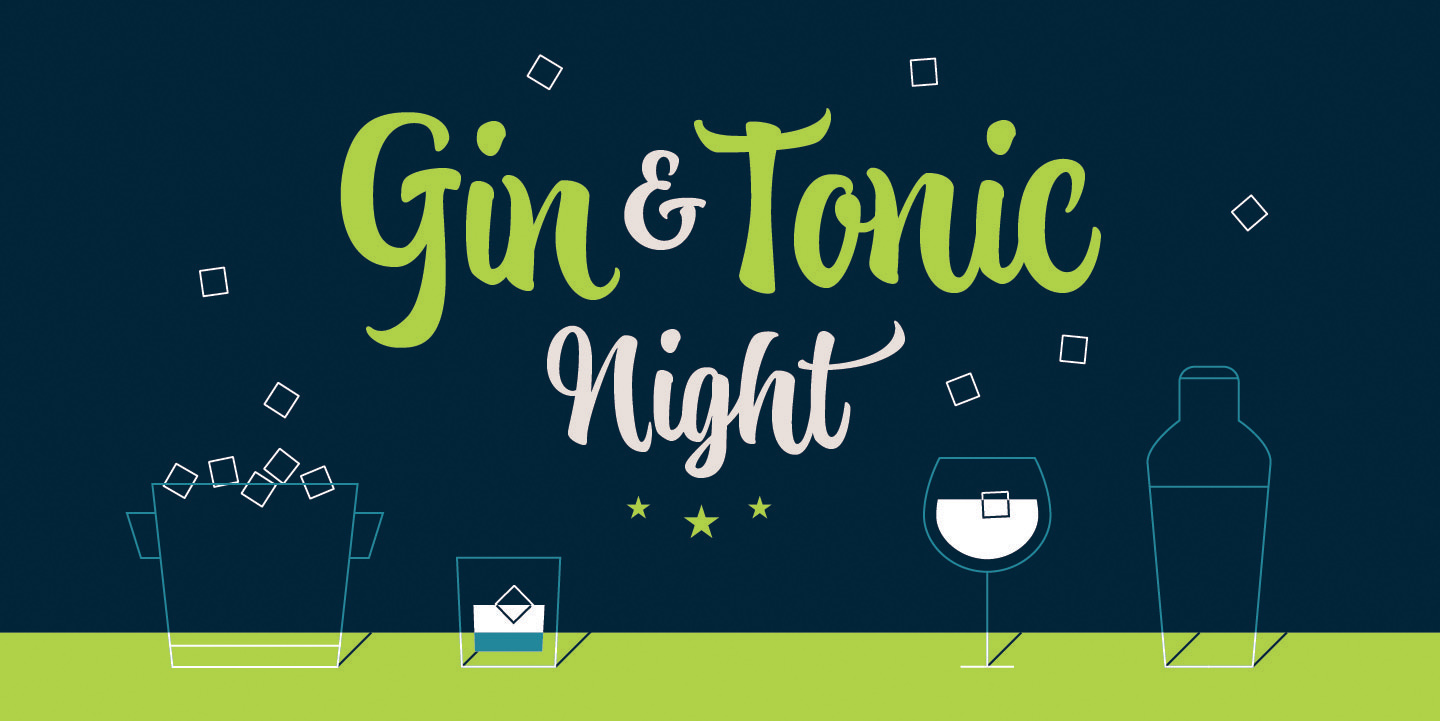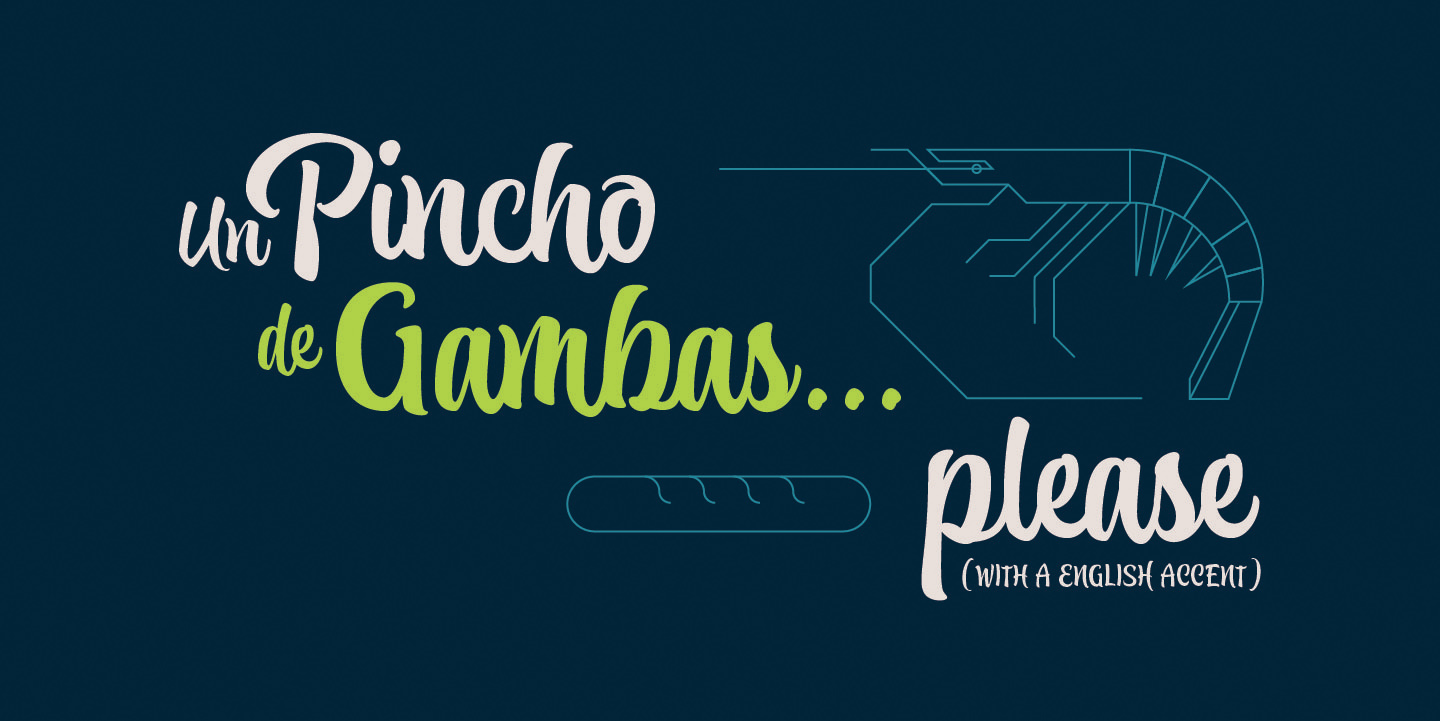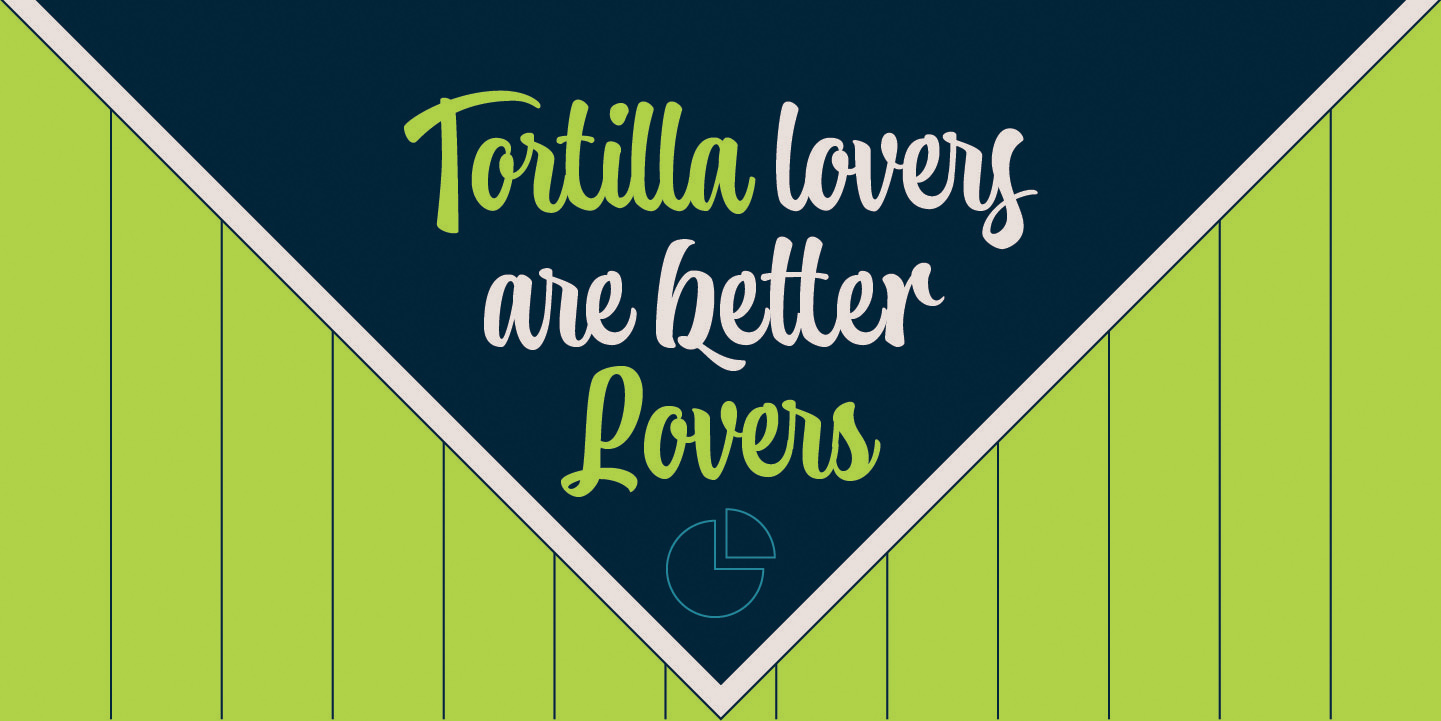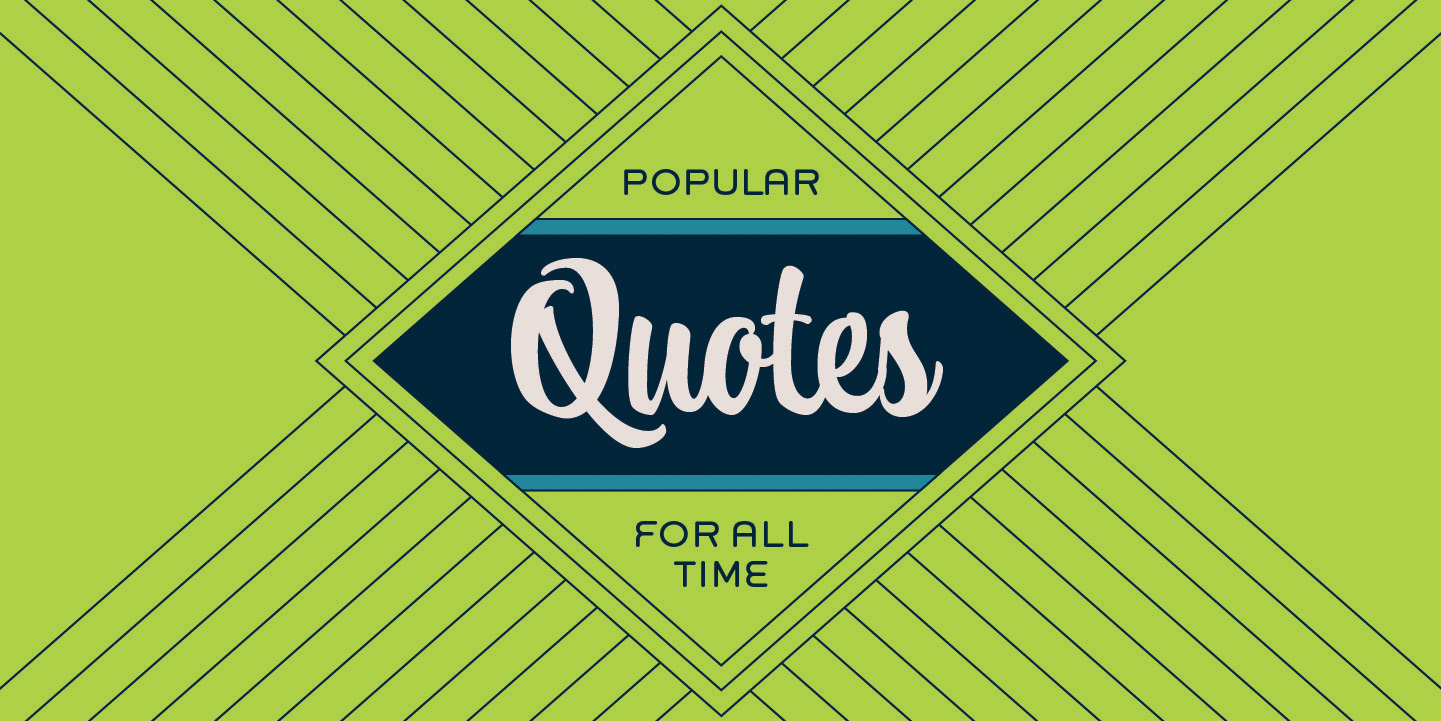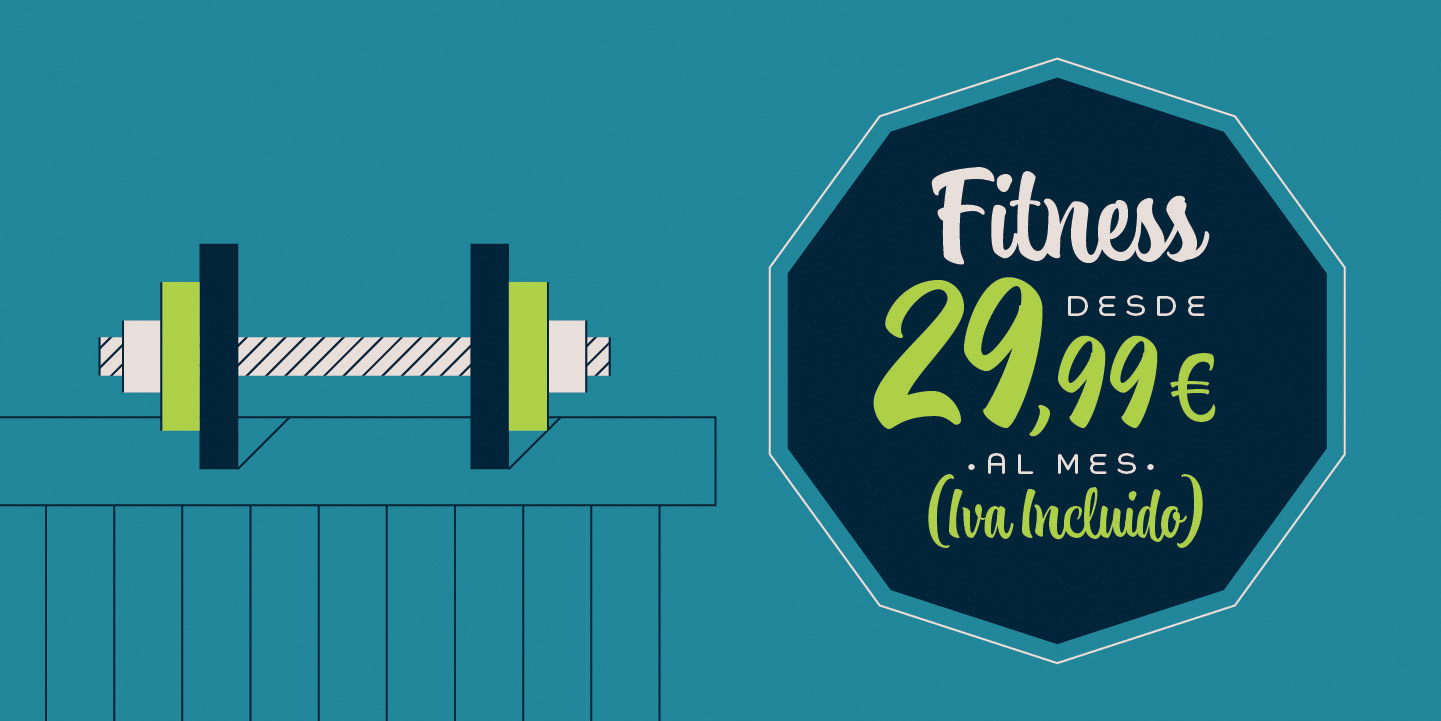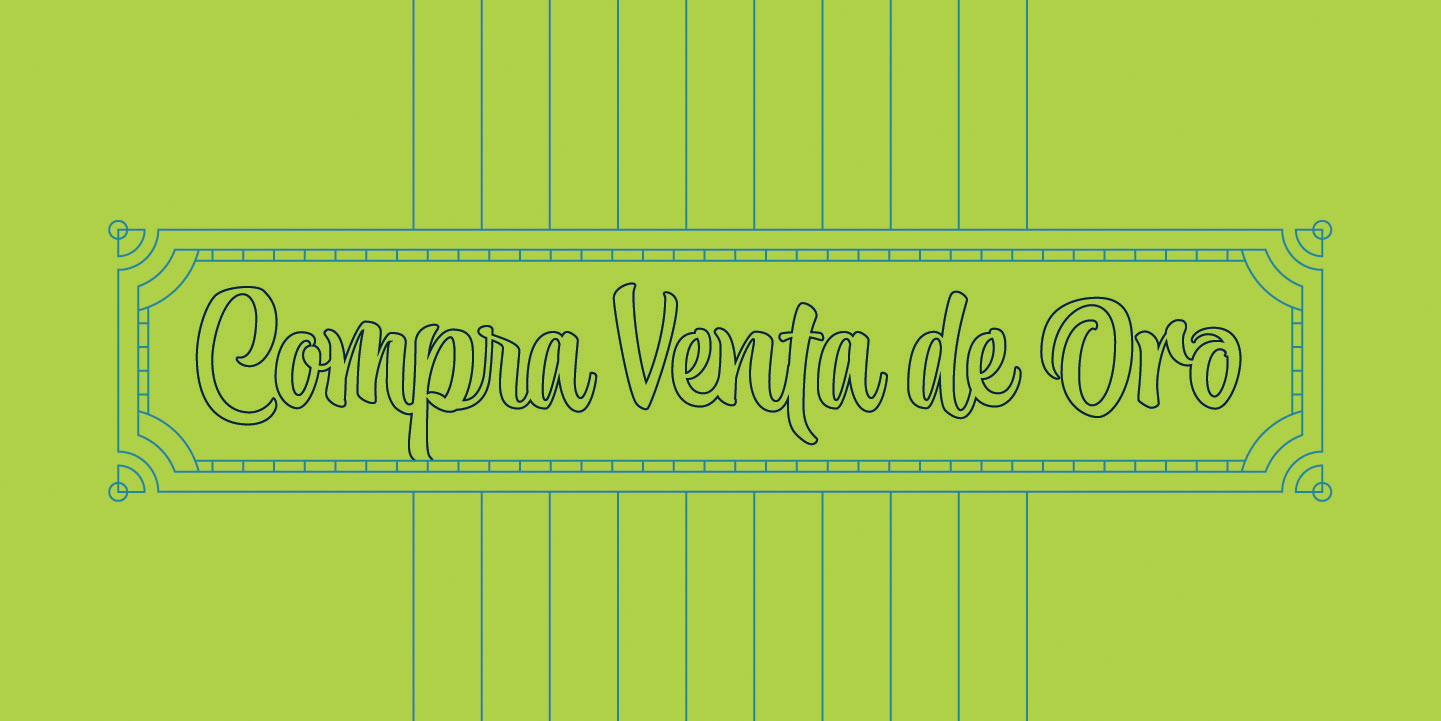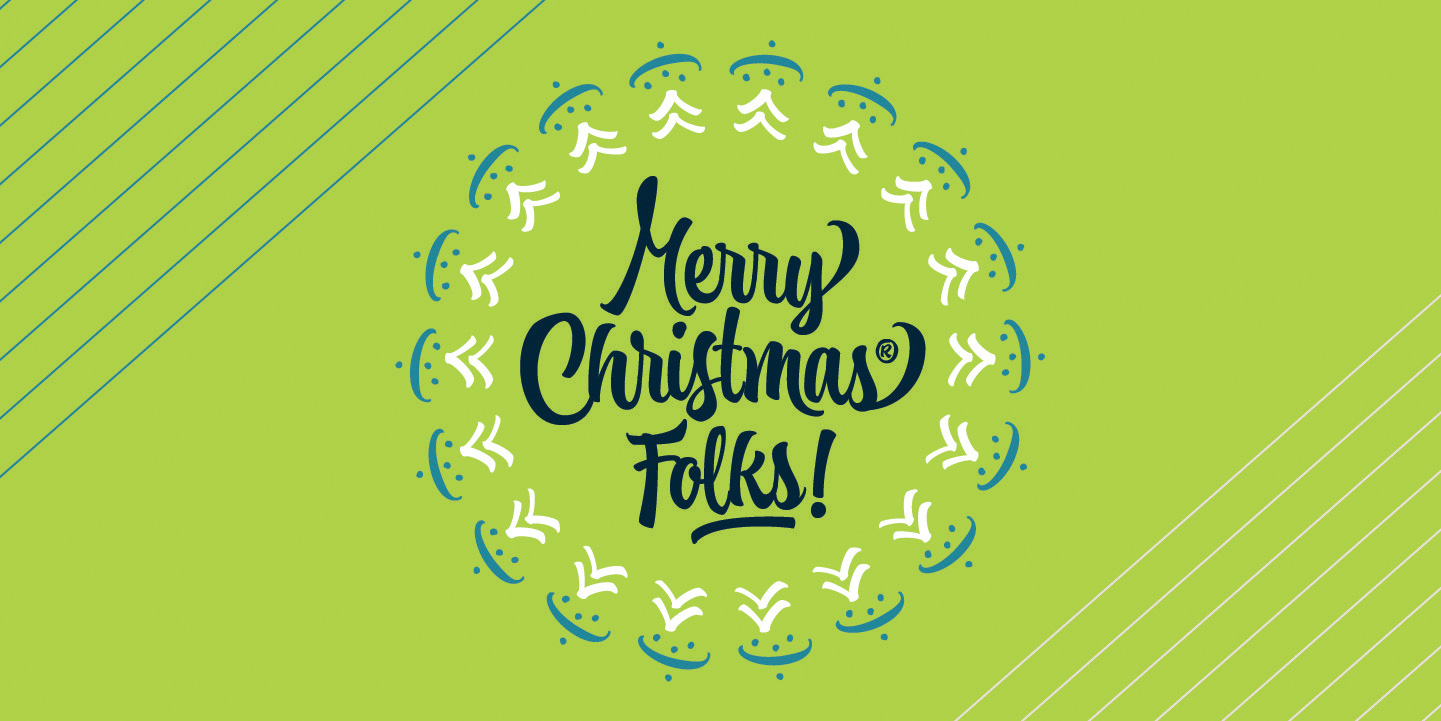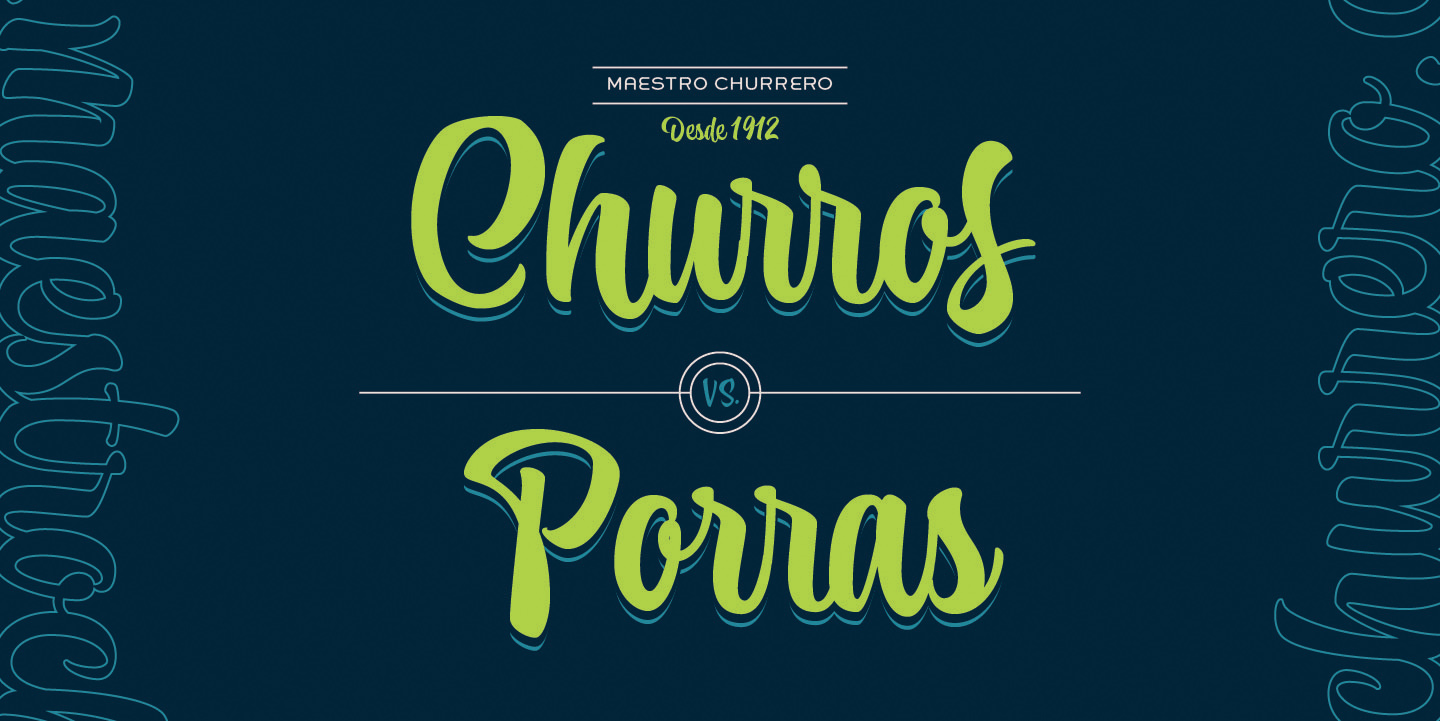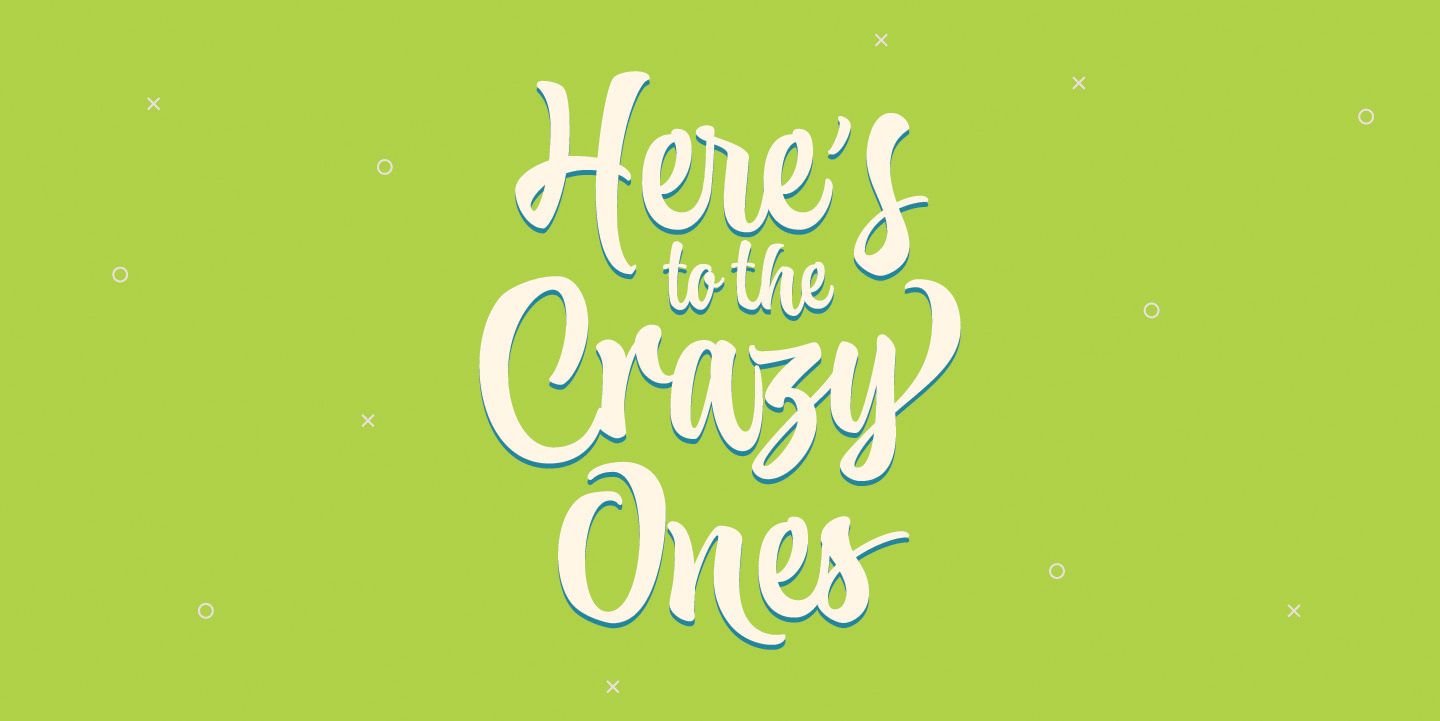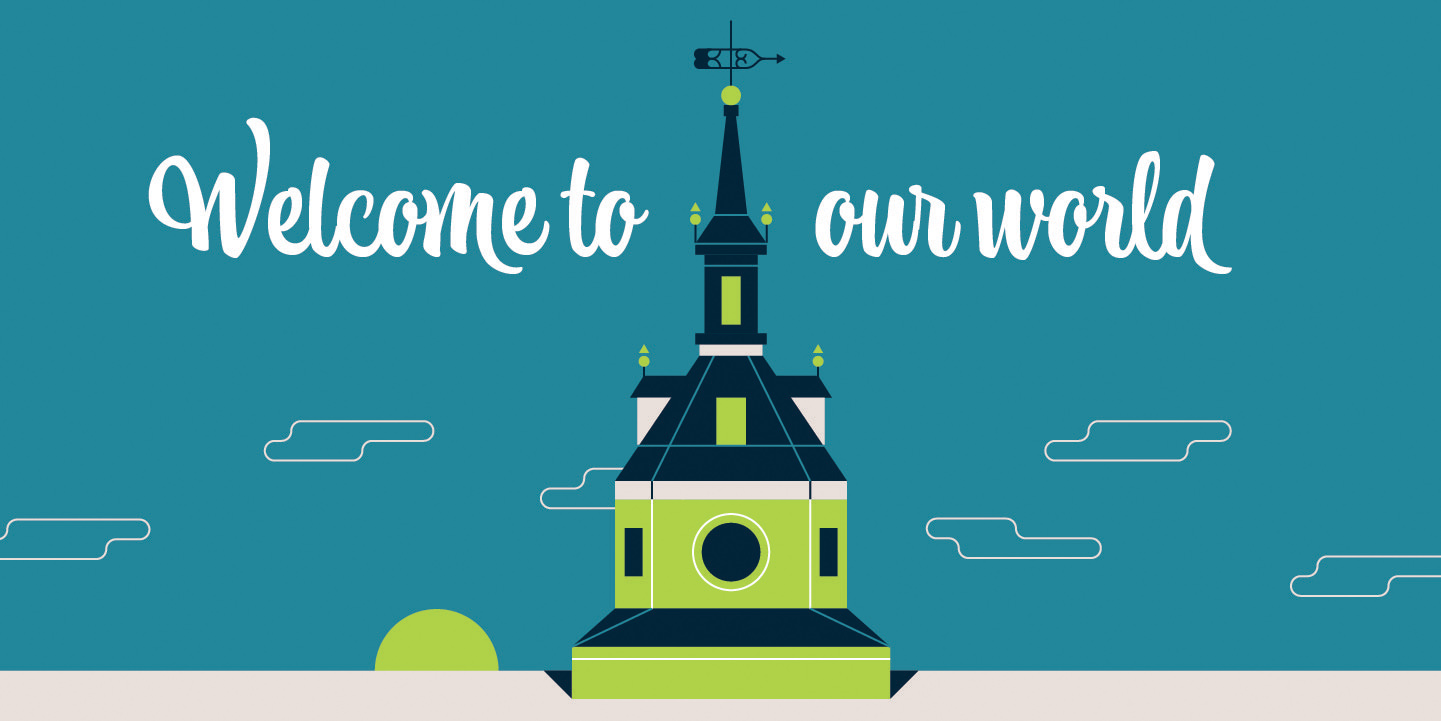
Atocha
Atocha & Atocha Caps
Introducing a new typeface by Joluvian & Ale Paul for Sudtipos.
It was expected that Joluvian’s third type font would be inspired by the city where he currently resides: Madrid, Spain. His previous creations had originated in Venezuela (Zulia) and The Philippines (Salamat), both, places where he had once lived.
Joluvian believes “now is the time to pay tribute and show gratitude towards a city that has bestowed me with so many fortunes.” He considers that Madrid’s people, streets, scents, flavor and sounds are gift enough to awaken the creative urgency in any artist. This time around, it is being expressed through the crafts of the Typographic industry.
Since his arrival in Spain, Joluvian has been attached to the city’s central area, specifically to the renowned Atocha Street and its railroad station. It was precisely on that street that Joluvian and Mauco Sosa, his friend and partner, decided to establish the Patera Studio: a charming creative space that birthed the concept for this new font which they proudly named Atocha.
The artists where still in the final phases of their previous script, Salamat, when the idea for Atocha came about. This dynamic is actually very typical of the artistic process, in which every finished product spawns the need to create its next level offspring.
“Working on Atocha and Atocha Caps has been a very pleasant journey. We have given our best efforts, for we wanted to offer a typeface that was both versatile and user-friendly on a number of applications, showing a wide scope of alternatives in our glyphs,” says the artist. The illustrations were created by Mauco, to ensure visual integration that would showcase the work of both members of the Patera Studio and their complementing aesthetic voices.